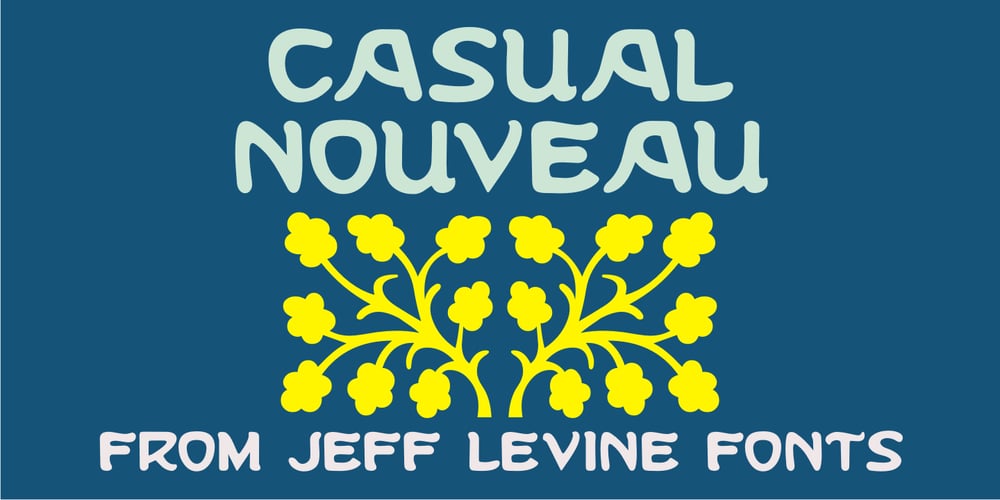
Casual Nouveau JNL Font Family was designed by Jeff Levine and published by Jeff Levine. Casual Nouveau JNL contains 1 styles and family package options. Free-flowing pen lettering of the Art Nouveau period took letter forms into interesting curves and angles. The style was embraced and revived by the 1960s counter-culture in its rock concert posters and record album covers. However, the source for Casual Nouveau JNL is a 1911 piece of sheet music entitled “Back to the Carolina You Love”.